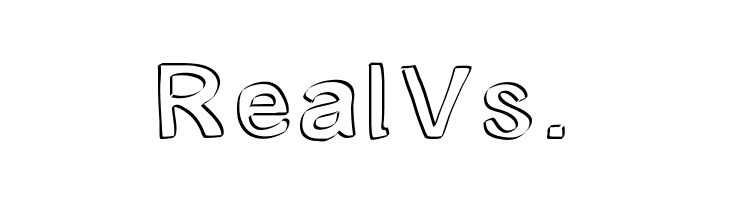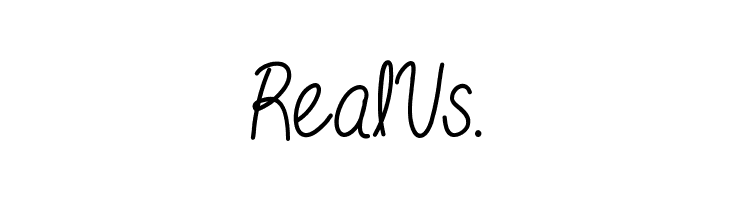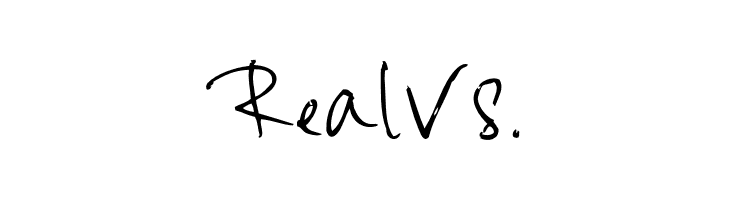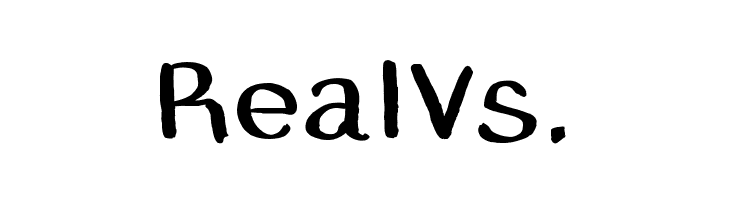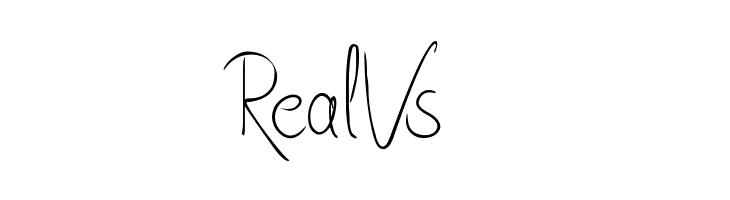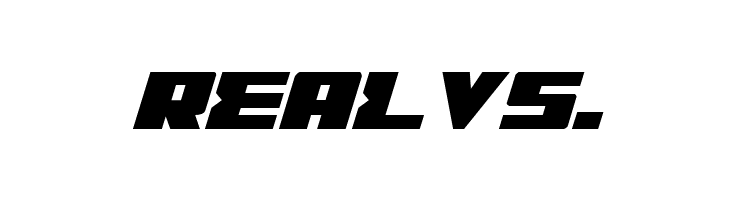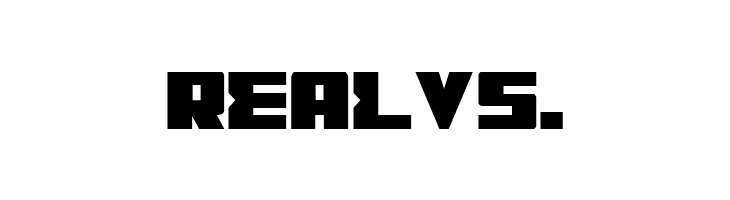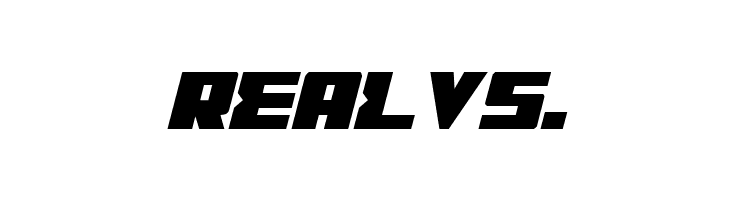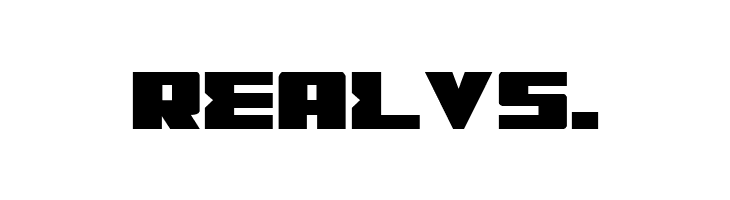
A bold, energetic script font with a hand-painted, dynamic style.
A bold, 3D geometric font with a futuristic and industrial style.
A bold, geometric font with a double-line effect, perfect for standout designs.
A bold, angular, and italicized font with a modern and dynamic style.
A bold, geometric font with an industrial and modern style.
A fluid and expressive handwritten cursive font.
A bold, outlined font with a modern, geometric style.
A playful, bold, and hand-drawn style font with rounded edges.
A dynamic and expressive handwritten font with fluid, irregular strokes.
A playful handwritten font with fluid, dynamic letterforms.
A playful, decorative font with letters as cartoon-like creatures.
A bold, decorative font with a three-dimensional, patterned design.
A bold, hollow, and decorative font with a modern, three-dimensional style.
A bold, three-dimensional font with a modern, industrial style.
A bold, distressed font with a rugged, hand-drawn appearance.
A bold, condensed geometric font with a modern and impactful style.
A bold, condensed, and italicized font with a modern geometric style.
A bold, italicized font with a futuristic and dynamic design.
A bold, geometric font with a strong, blocky appearance.
A playful, hand-drawn font with bold, rounded strokes and an informal style.
A tall, narrow, and playful handwritten font with consistent stroke width.
A bold, decorative font with a gothic, organic design.